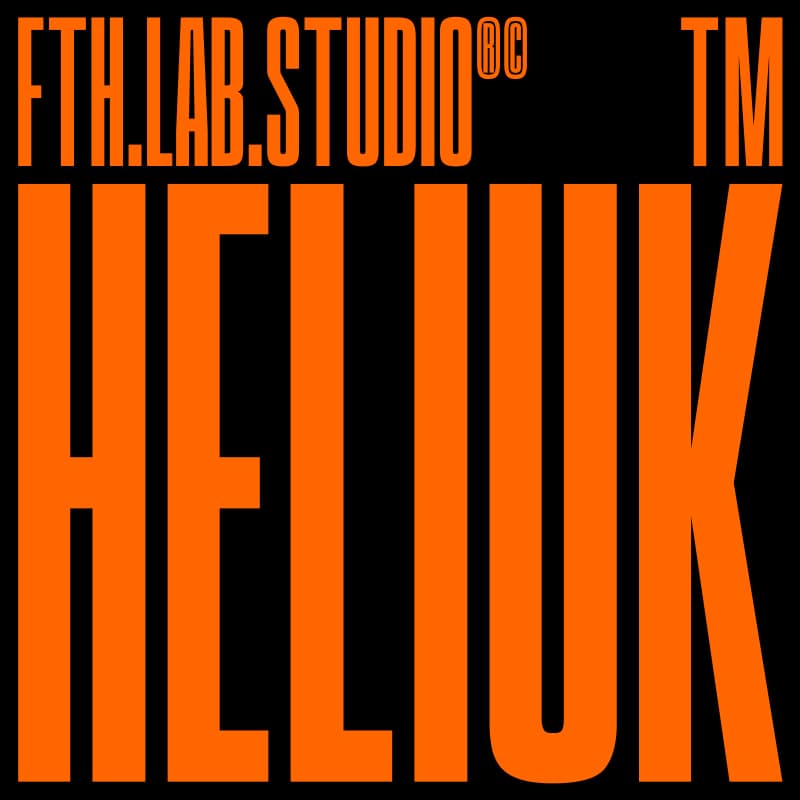
<p>Heliuk is a compact font with a different character than the previous compact fonts. Heliuk has a strong yet soft character, with a cheerful and fresh theme, supported by four font types. </p><p>Heliuk is the perfect fit for your current design needs. And what's even more exciting is that you get a really cool free vector bonus. </p><p>Its weight excels in posters, social media, headlines, magazine titles, apparel, and large print formats and anywhere you want to see it.</p><p> Inspired by today's popular design styles, let your imagination run wild with Heliuk. Heliuk's versatility ensures it can adapt to a wide range of design projects, allowing you to fully express your creativity. </p><p>Whether you're creating a bold advertisement or a subtle editorial piece, this font will elevate your work and captivate your audience.</p>